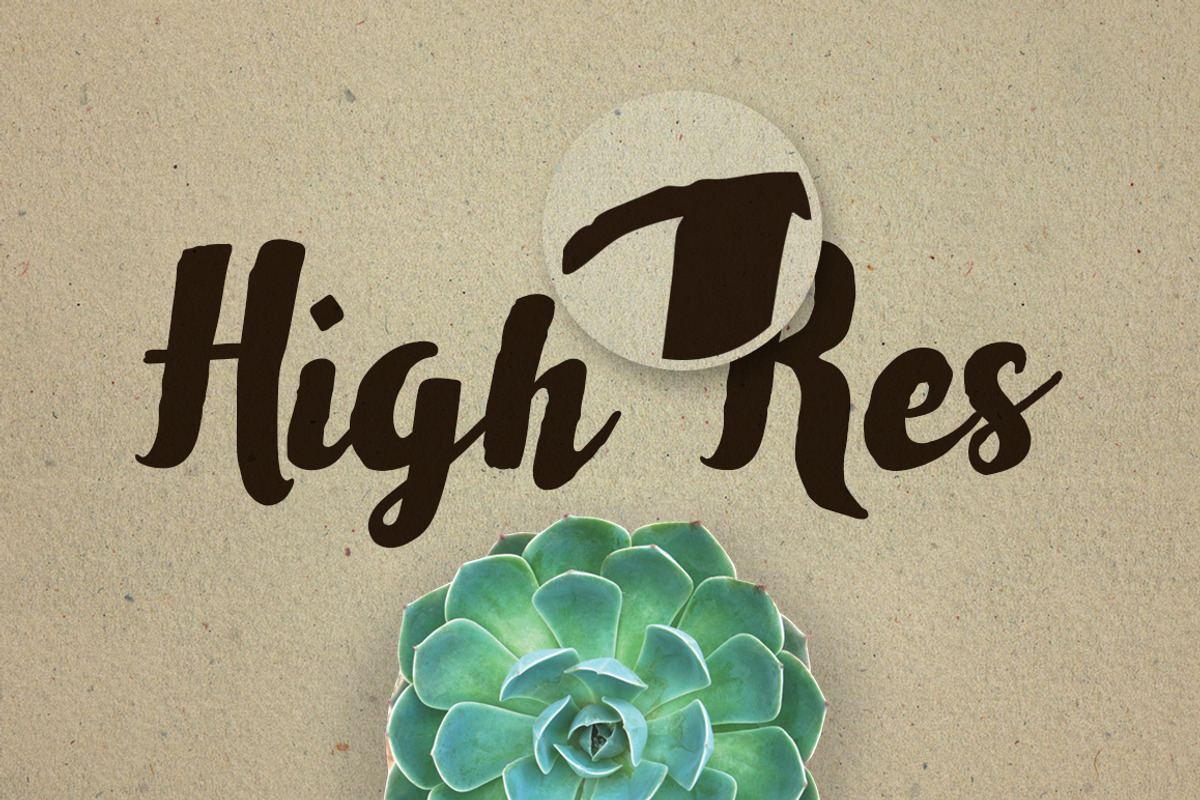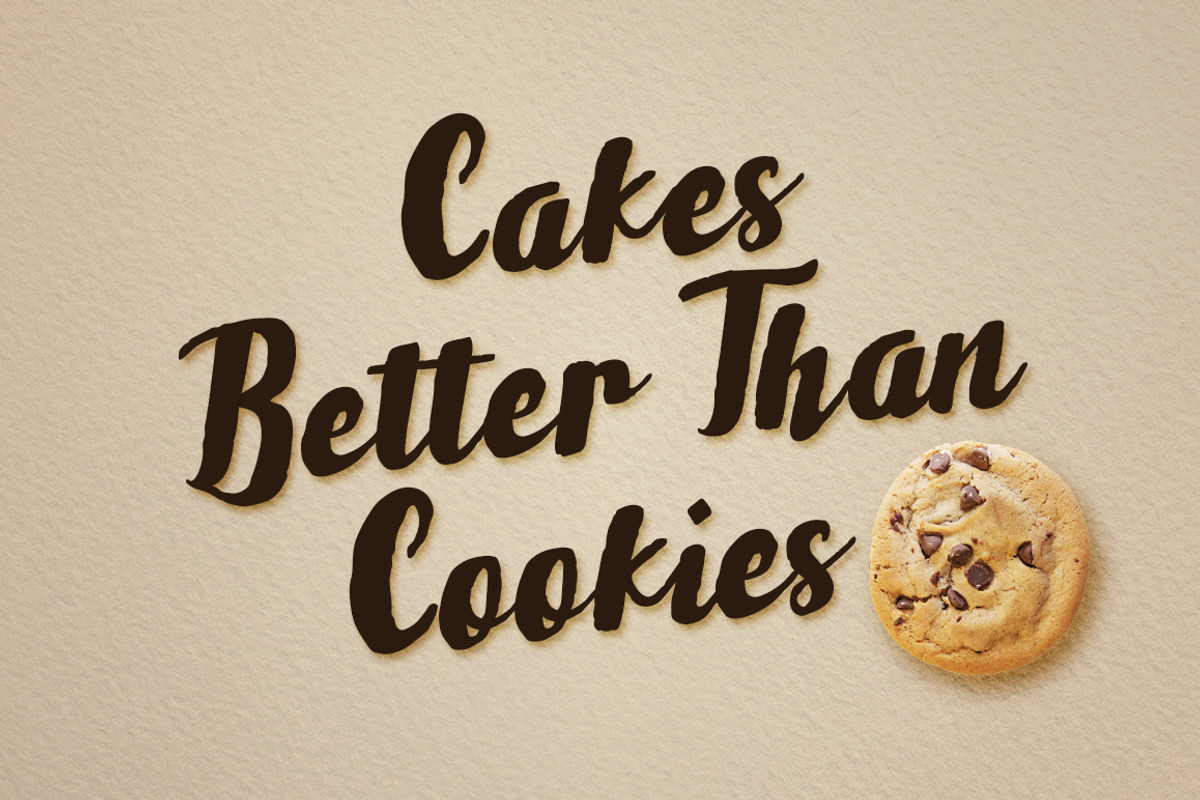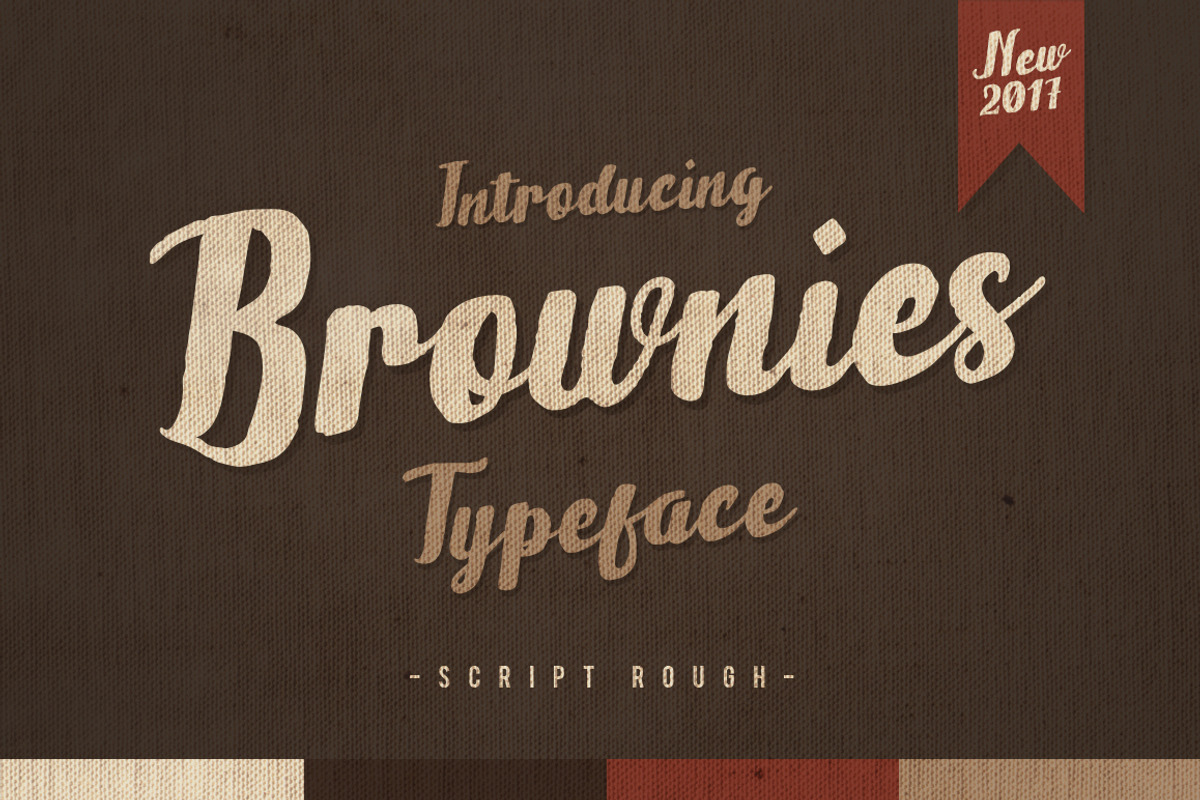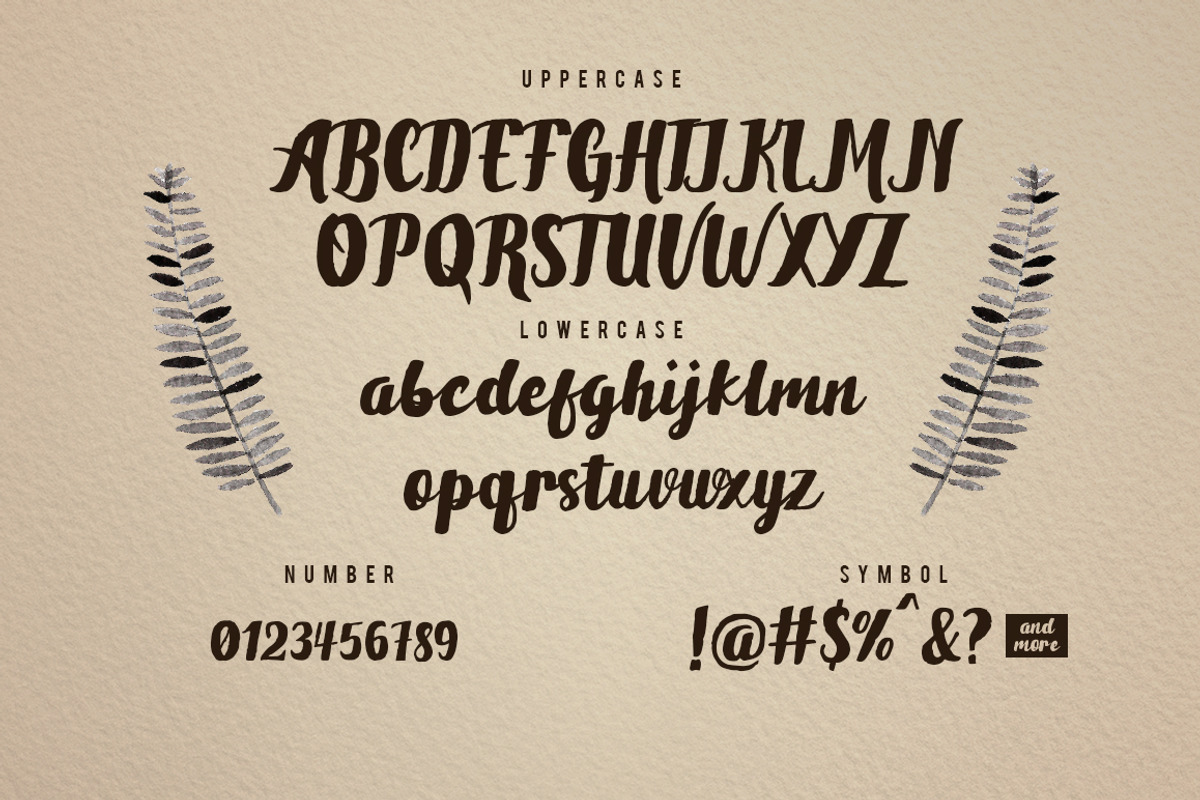
Brownies Typeface
a Brownies typeface Script font a good for make your design looks "Rough". Easy to combine with you Graphic Design. nice for design Label, Menu, Card, Tittle Book, and many more.
uppercase & lowercase